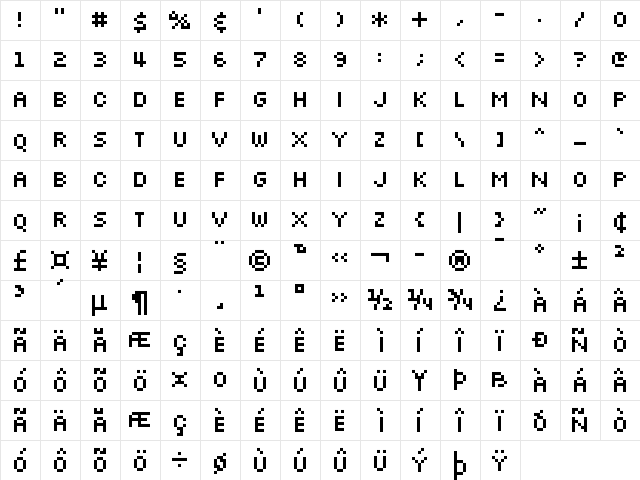
UF Silkscreen x Regular
| Foundry | Ultrafonts |
| Designer | Jason Kottke and TRUTH in Design. |
Design Context for UF Silkscreen x Typeface
UF Silkscreen x offers clean, dependable letterforms without strong stylistic allegiance, making it a practical choice for designers who need flexibility.